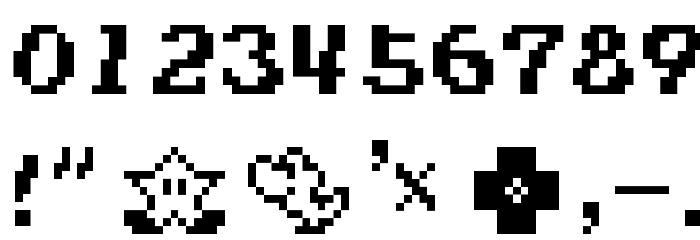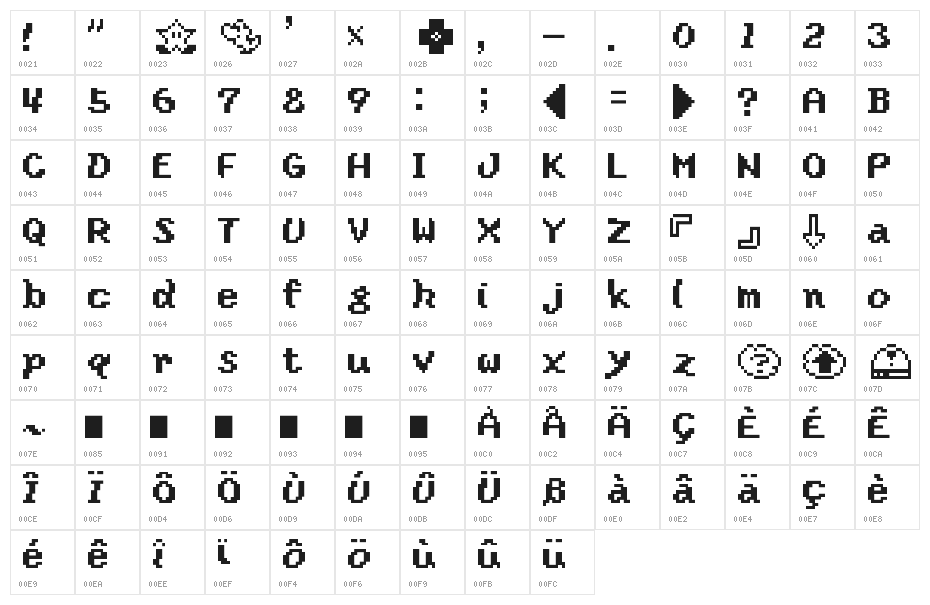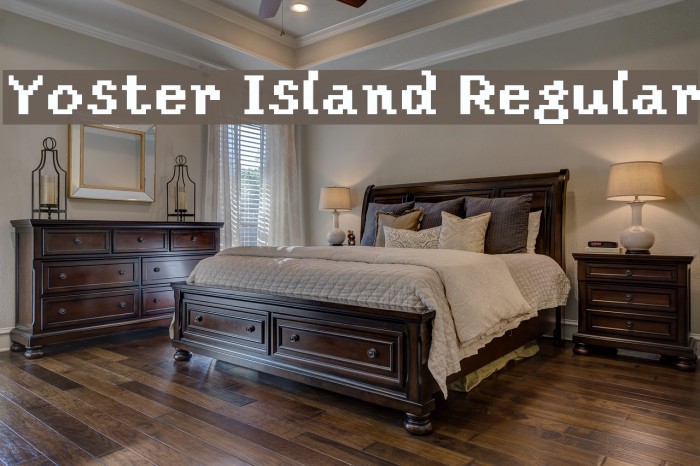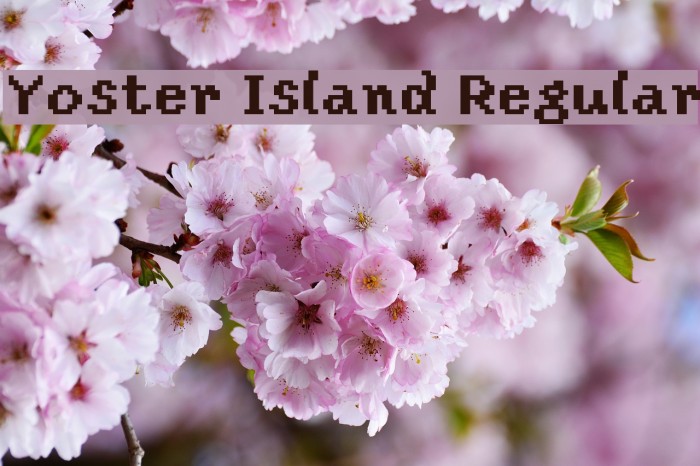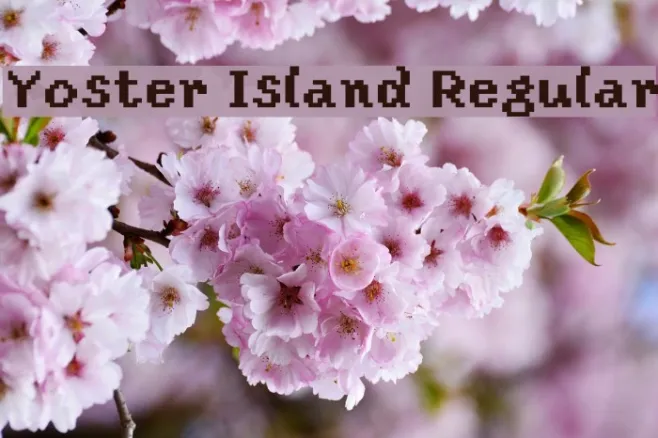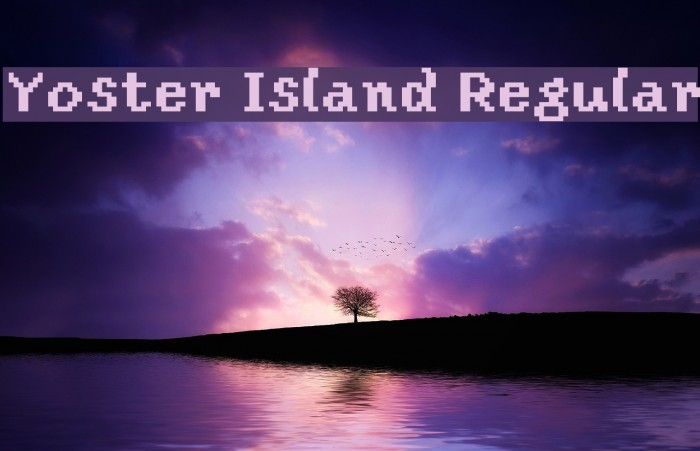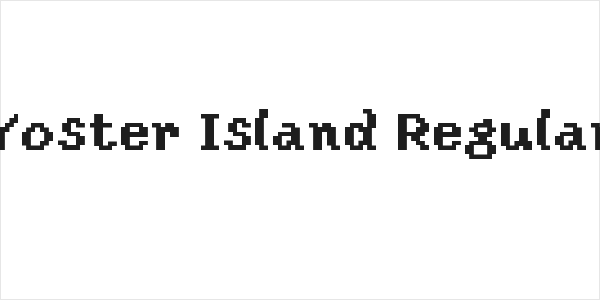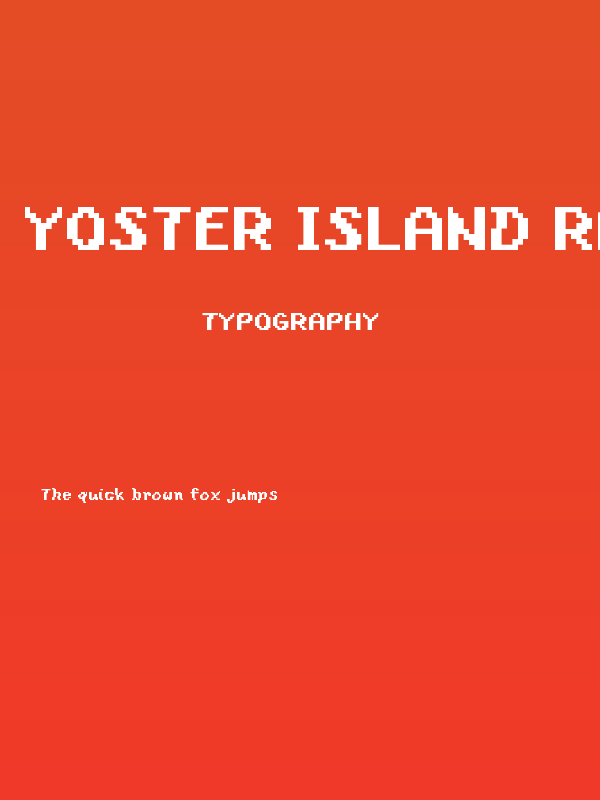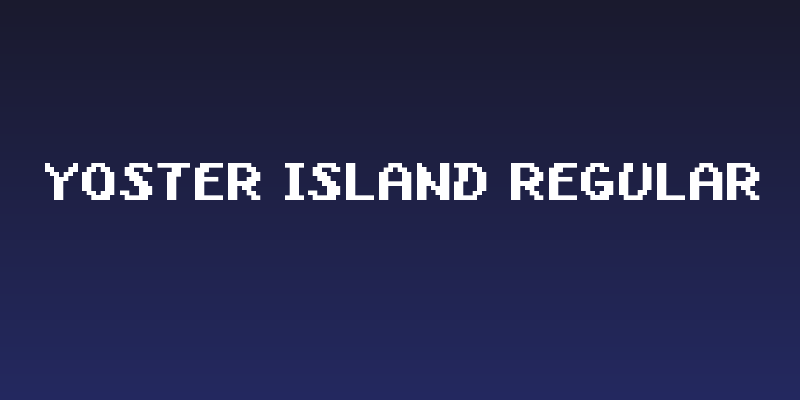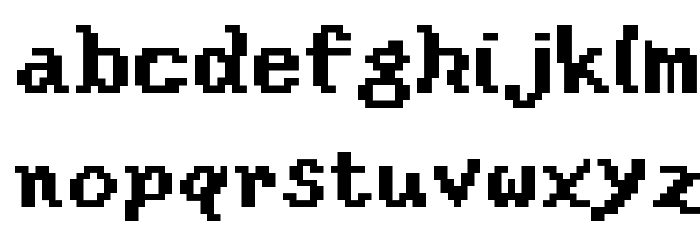
Yoster Island Regular Font
Yoster Island Regular Description
This font features a pixelated, blocky design reminiscent of retro video games. Each character is constructed with sharp, angular edges, giving it a distinct digital appearance. The uppercase and lowercase letters maintain a uniform width, contributing to a cohesive and structured look. Numbers and special characters follow the same pixelated style, ensuring consistency across all glyphs. The font's nostalgic aesthetic makes it ideal for projects that aim to evoke a sense of classic gaming or digital art. Its bold and striking presence ensures readability while adding a playful touch to any design.